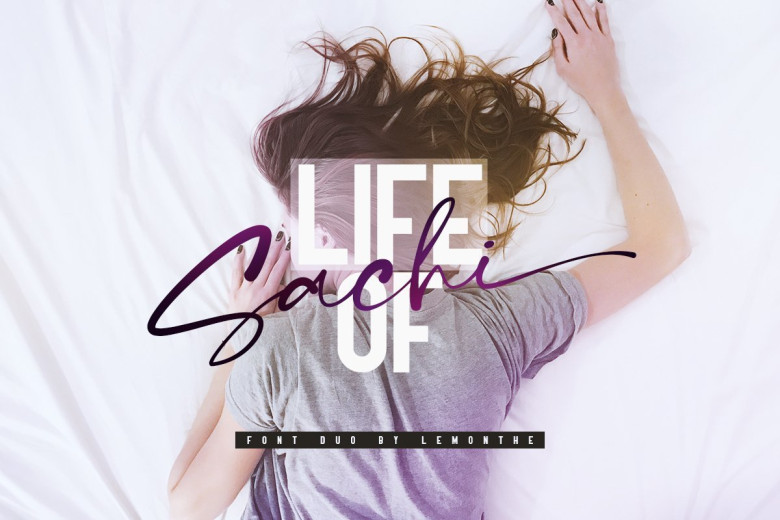
Sachi Font Duo Free
Introducing Sachi Font, A perfect font duo combination consist of a signature and a sans serif font. This typeface has elegant and clean looks which works perfect for you who needs a typeface for headline, logotype, apparel, invitation, branding, packaging, advertising etc.